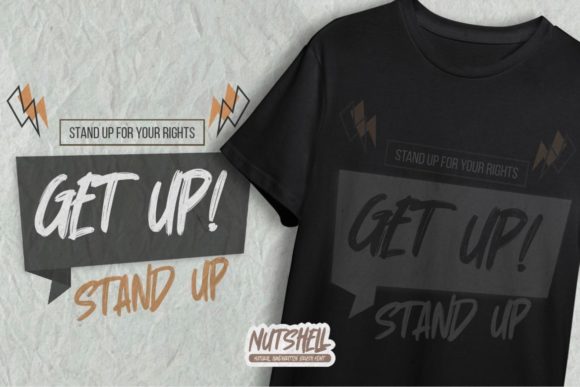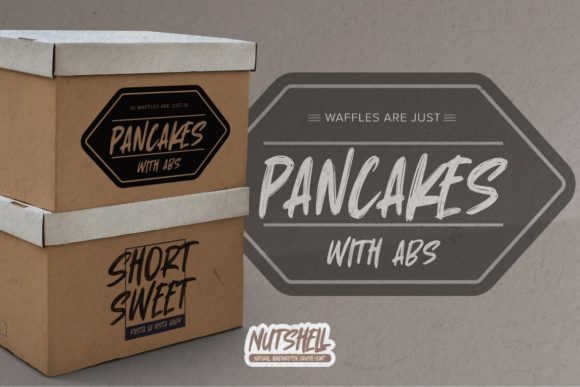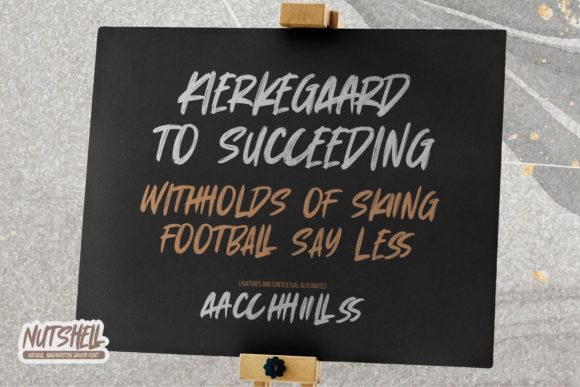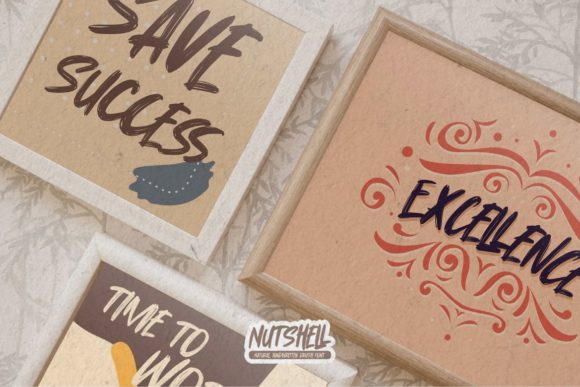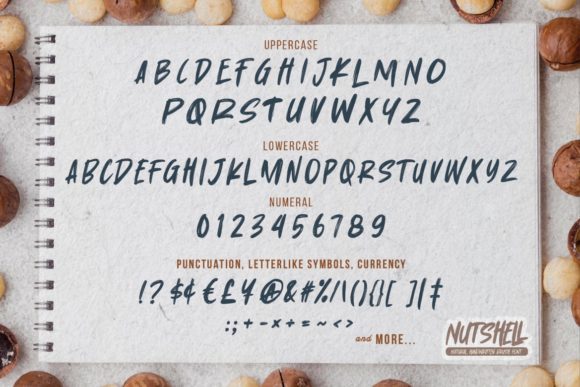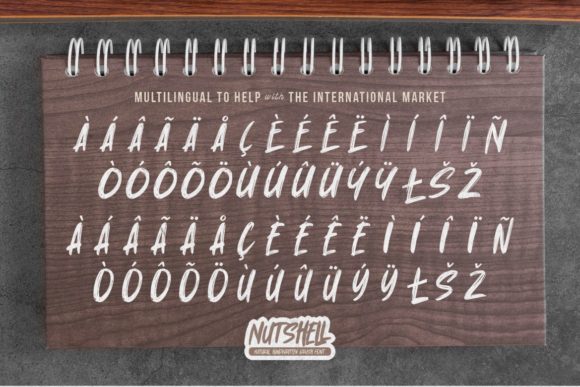
Introduction to Nutshell Font
Nutshell is a brushed display font that has a gloomy, street art vibe.
This font is suitable for designs such as t-shirts, sportswear, logos, advertisements, clothing, and more .
Key Features of Nutshell Font